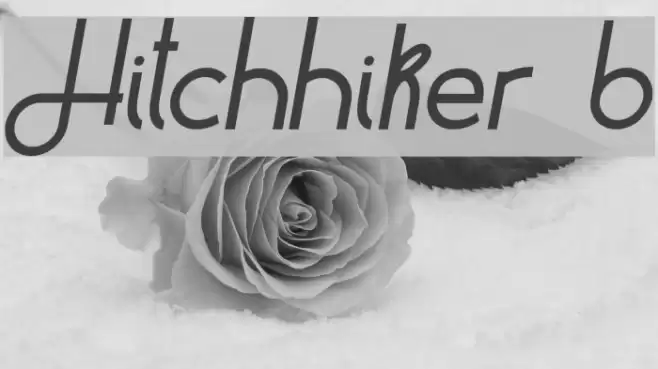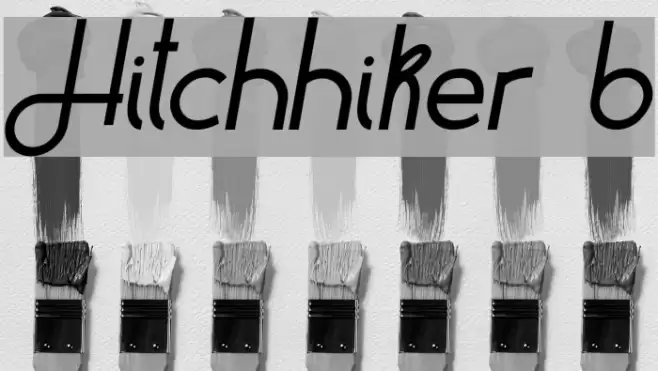
Hitchhiker b Font
Hitchhiker b Description
This font features a unique blend of modern and retro elements, characterized by its flowing, cursive-like uppercase letters and bold, rounded lowercase characters. The uppercase letters have a distinct, playful flair with elongated strokes and loops, giving them a whimsical appearance. In contrast, the lowercase letters are more straightforward, with a bold and rounded design that ensures readability. The numerals and special characters maintain this balance of playfulness and clarity, making the font versatile for various uses. The overall design is both eye-catching and functional, suitable for creative projects that require a touch of personality.
A modern-retro font with playful uppercase and bold, rounded lowercase letters from Uncategorized fonts.
- Proposed Projects: Ideal for branding, posters, invitations, and creative projects that need a unique and playful touch.
- Overall Style: Modern, Retro